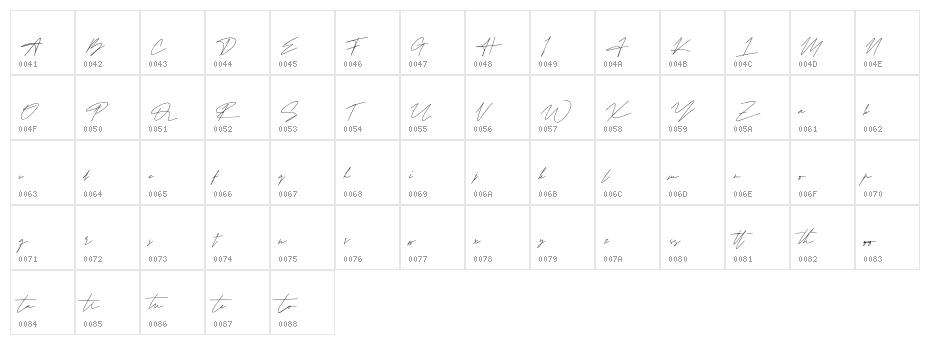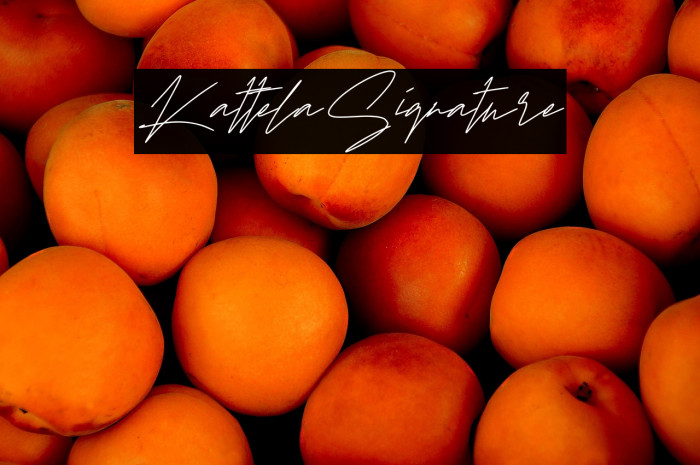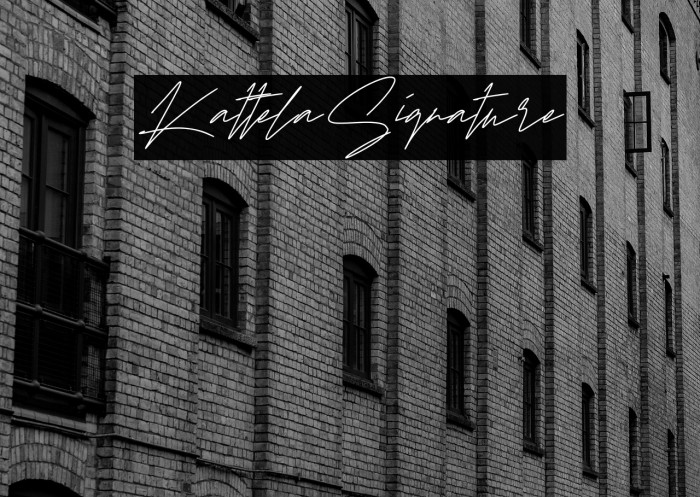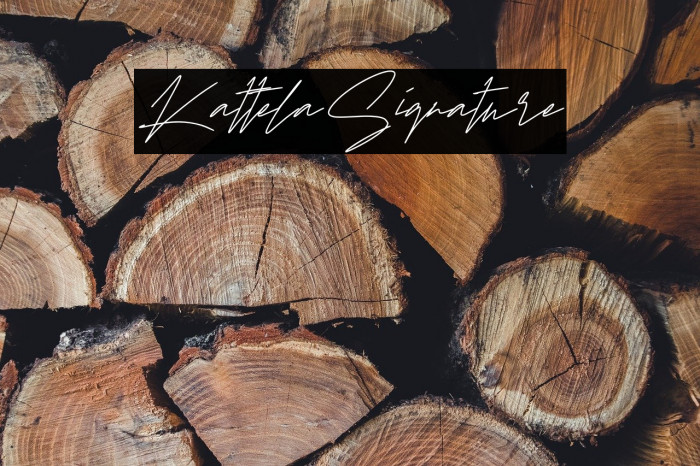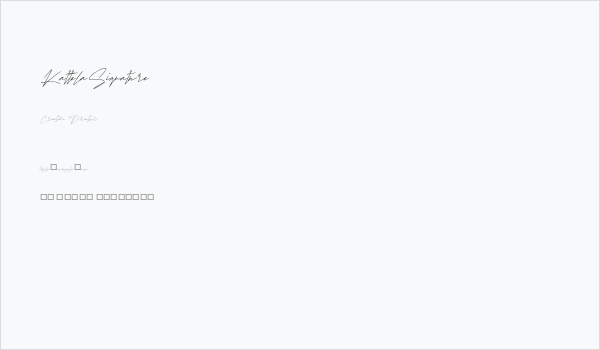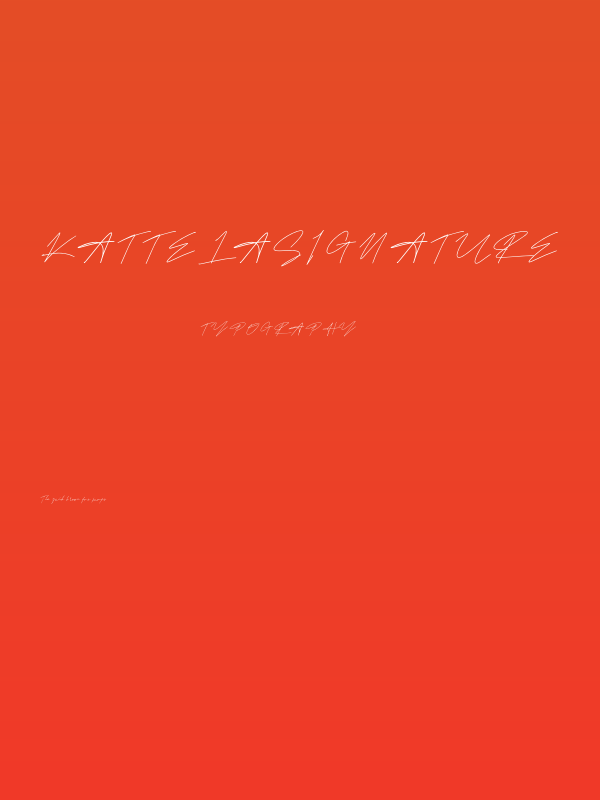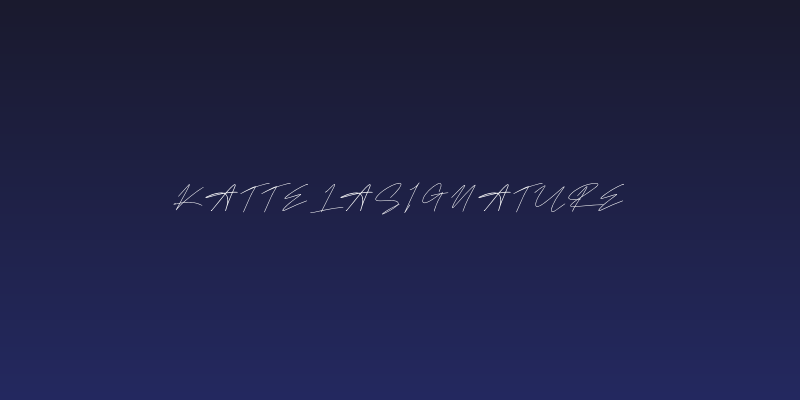
KattelaSignature Font
KattelaSignature Description
This font exudes a sense of elegance and fluidity, characterized by its cursive, handwritten style. The letters are connected in a smooth, flowing manner, reminiscent of a personal signature. The strokes are thin and delicate, giving it a refined and sophisticated appearance. The uppercase letters maintain a consistent height, while the lowercase letters vary slightly, adding a touch of dynamism. This font is ideal for projects that require a personal, intimate touch, such as invitations, greeting cards, or branding materials that aim to convey elegance and class.
| Overall Style | Elegant, Personal |
| Proposed Projects | Ideal for wedding invitations, personal branding, greeting cards, and elegant stationery. |